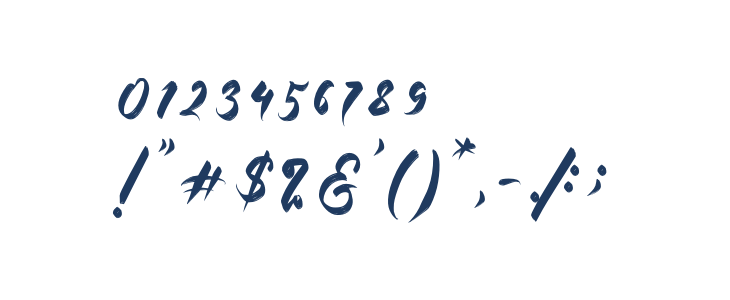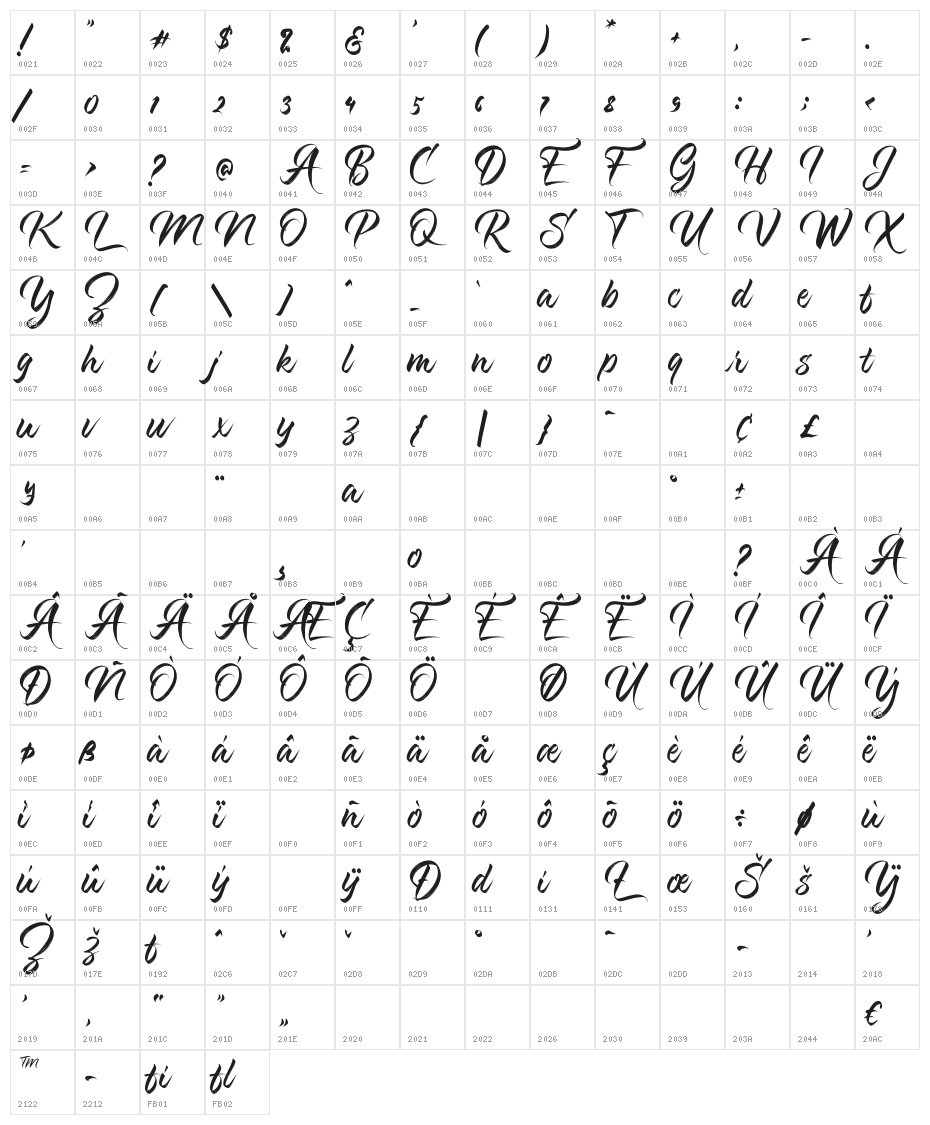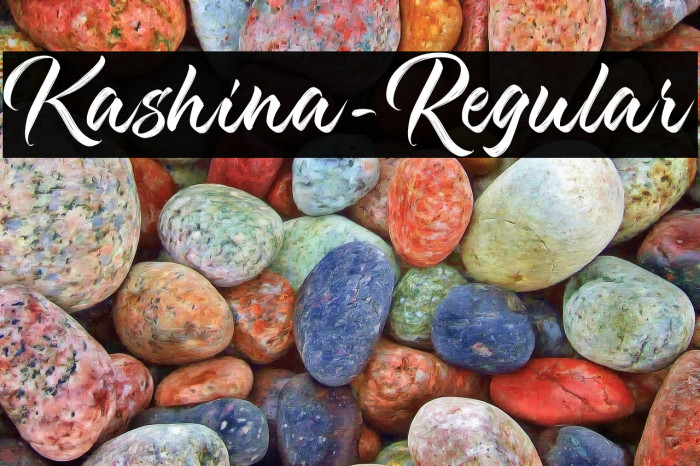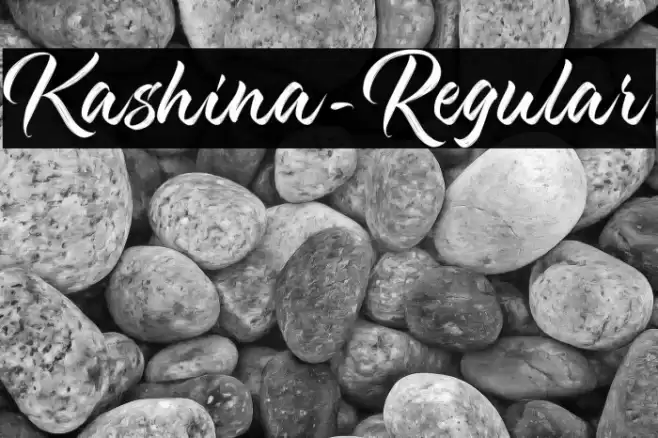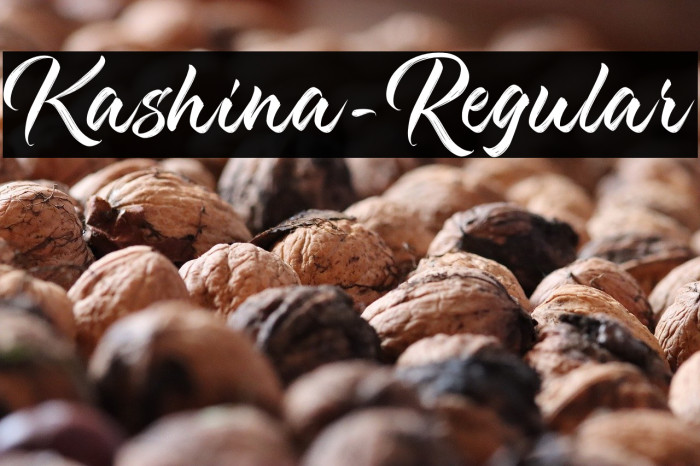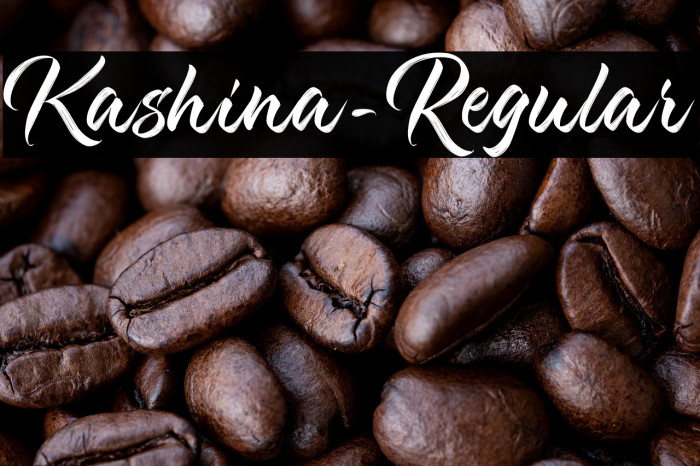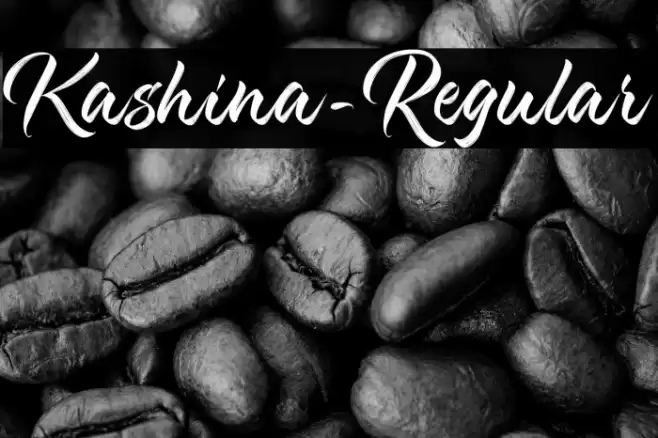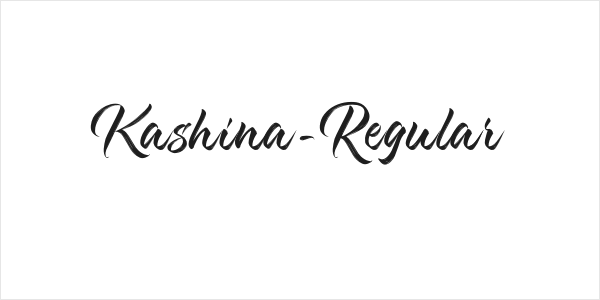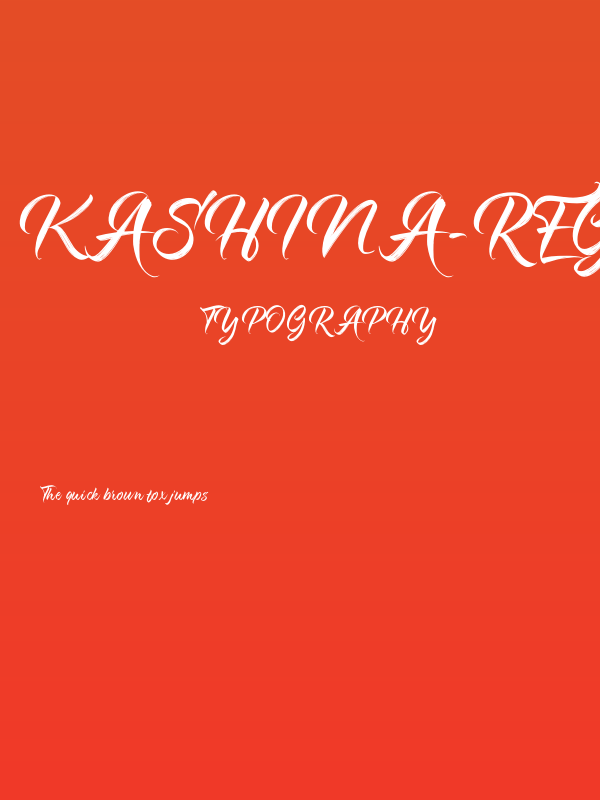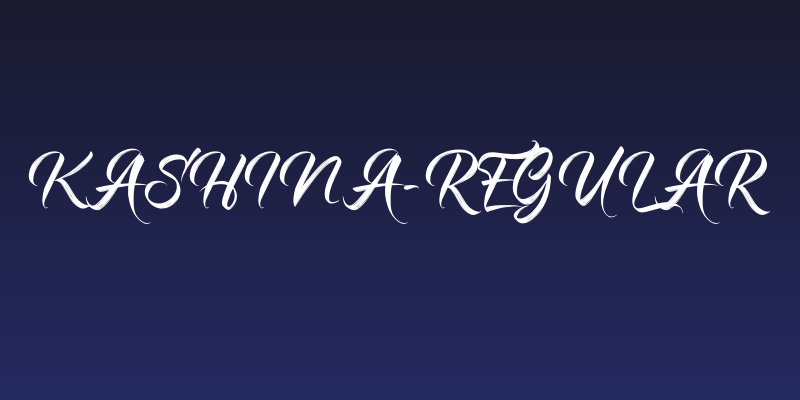
Kashina-Regular Font
Kashina-Regular Description
This font exudes a dynamic and elegant script style, characterized by its fluid, cursive strokes and artistic flair. The uppercase letters are bold and sweeping, with a sense of movement that suggests a handwritten touch. The lowercase letters maintain this fluidity, offering a harmonious blend of thick and thin lines that enhance readability while retaining a sophisticated appearance. The numerals and special characters are crafted with the same attention to detail, ensuring consistency across all glyphs. This font is ideal for projects that require a personal, yet professional touch, such as invitations, branding, and editorial design.